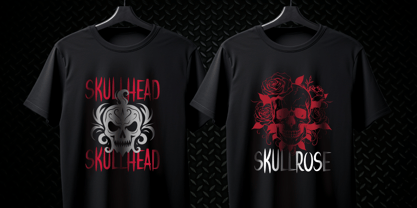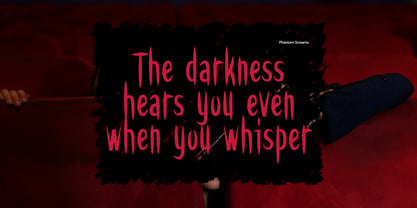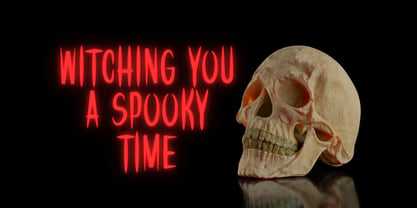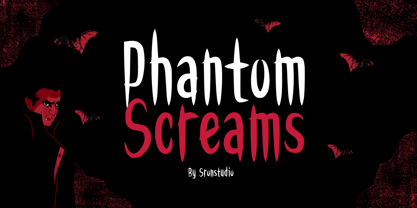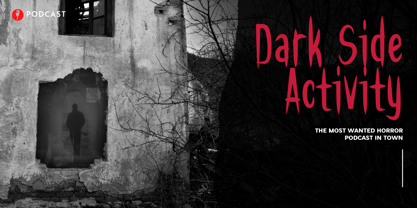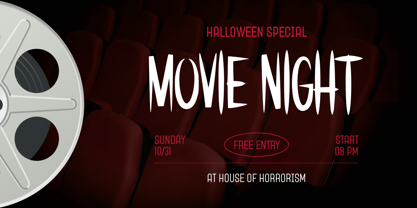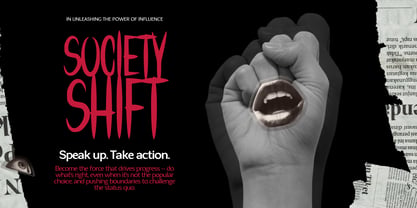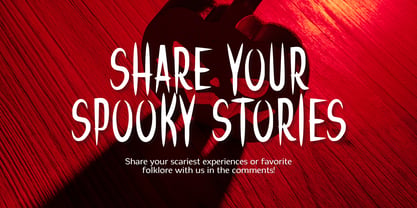
Phantom Screams
La familia tipográfica Phantom Screams fue diseñada por Muhamad Yusron Billah y publicada por Sronstudio. Phantom Screams contiene 1 estilos. Más información sobre esta familia
Phantom Screams is a terrifying horror font designed to send chills down your spine. With its eerie, jagged letterforms and haunting atmosphere, this font is perfect for horror movie titles, spooky posters, Halloween designs, and any project that needs a dose of fear. Phantom Screams captures the essence of darkness, making every word look unsettling and suspenseful. Dare to use it and unleash the horror!